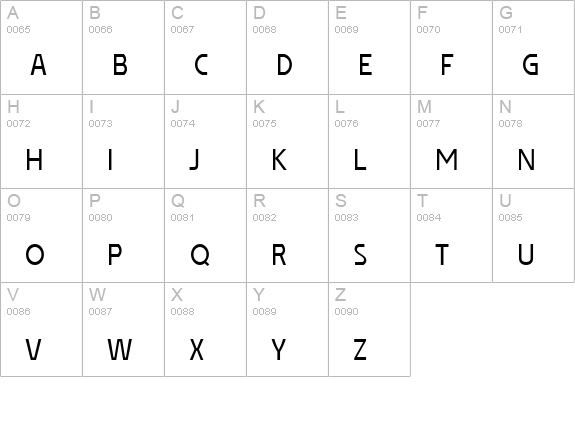
Affluent font is a luxurious typeface that exudes sophistication and elegance. Its sleek and stylish design makes it perfect for high-end branding, fashion editorials, and upscale invitations. With its clean lines and modern aesthetic, Affluent font is sure to elevate any design project to the next level. What makes Affluent font even more appealing is that it is available for free download at FontsMarket.com. This means you can add a touch of luxury to your projects without breaking the bank. Don't miss out on the opportunity to enhance your designs with this exquisite typeface. Download Affluent font today and let your creativity shine!